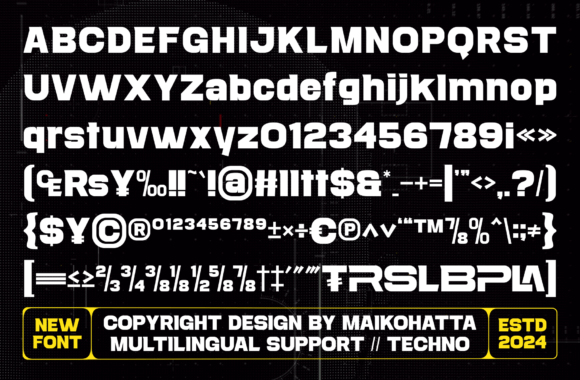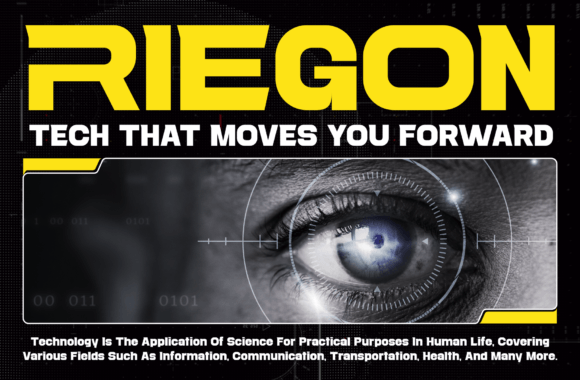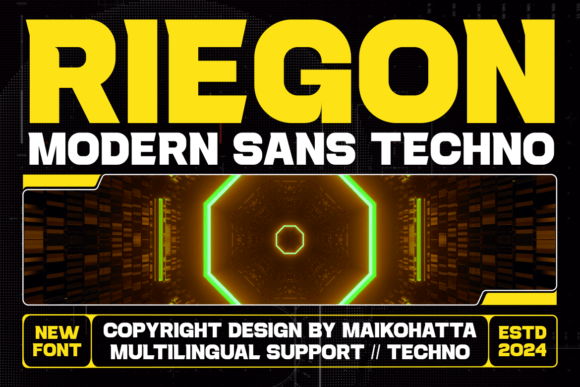
Riegon Font
Riegon Font is a modern sans-serif font with a techno feel. It’s sleek, clean, and futuristic, perfect for giving a contemporary and high-tech look to any design. The letters are simple and smooth, making them easy to read while adding a stylish, cutting-edge touch.